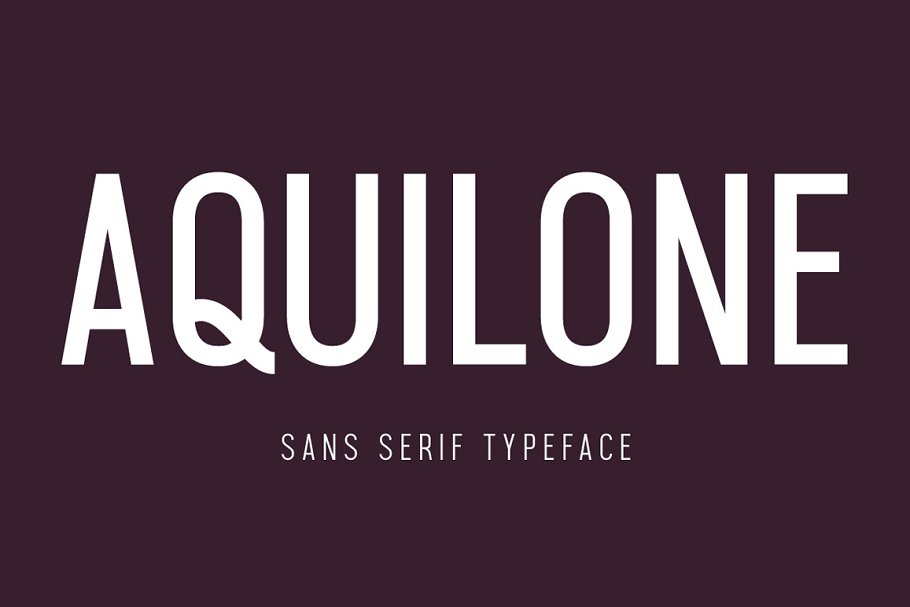
Introducing AQUILONE font, your ultimate choice for creating captivating campaign posters! Designed by the incredibly talented Magdalena Boffito, this condensed geometric sans serif typeface is both simple and functional, guaranteeing to elevate your designs to new heights.
With its striking appearance, AQUILONE font instantly captures attention and leaves a lasting impression. Each letter is meticulously crafted, exuding a sense of elegance and sophistication that will captivate your audience. Whether you're advertising a political campaign, promoting a social cause, or organizing an event, AQUILONE font will perfectly convey your message with utmost clarity and impact.
What sets AQUILONE font apart is its versatile range of stylistic alternates. These alternate characters allow you to experiment and infuse your designs with a unique touch, ensuring your campaign posters stand out from the crowd. You have the power to customize every aspect, making each poster a true masterpiece that speaks directly to your target audience.
Not only does AQUILONE font offer stunning aesthetics, but it also provides unrivaled functionality. Its impeccable legibility ensures that your message remains crystal clear, even from a distance. Say goodbye to blurry or illegible text – AQUILONE font guarantees a seamless reading experience, captivating viewers and conveying your message effectively.
Language barriers will never hinder your campaign's success with AQUILONE font. With comprehensive multiple language support, you can effortlessly cater to diverse audiences and expand your reach globally. Break through language barriers and connect with people from different cultures, ensuring your campaign resonates with everyone.
Invest in AQUILONE font today and unlock endless creative possibilities. With its captivating charm and extensive features, this font will be your secret weapon for creating visually stunning and emotionally engaging campaign posters that leave a lasting impact. Let your designs speak volumes and leave your audience in awe.